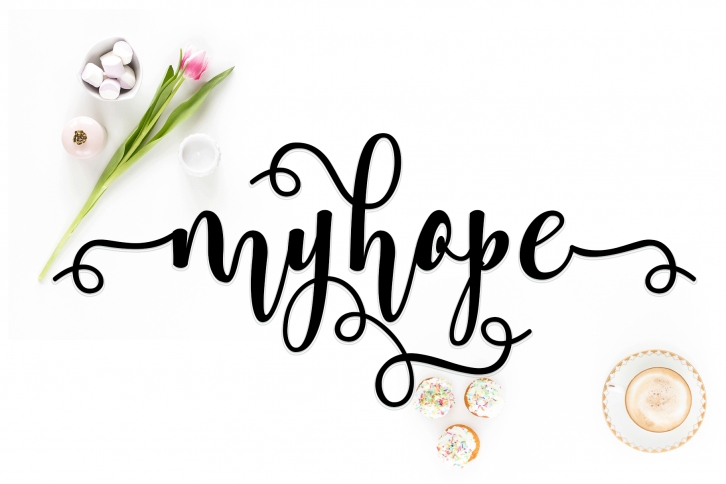
Myhope is a romantic, stylish, and beautifully flowing handwritten font. It is perfect for adding a personal note to your wedding invitations, birthday cards, thank you notes, or elegant branding projects. This font is PUA encoded, which means you can access all of the glyphs and swashes with ease!